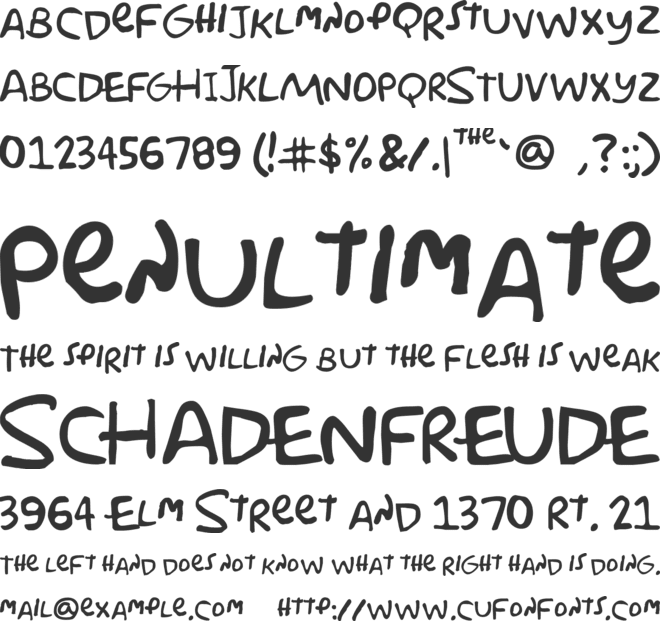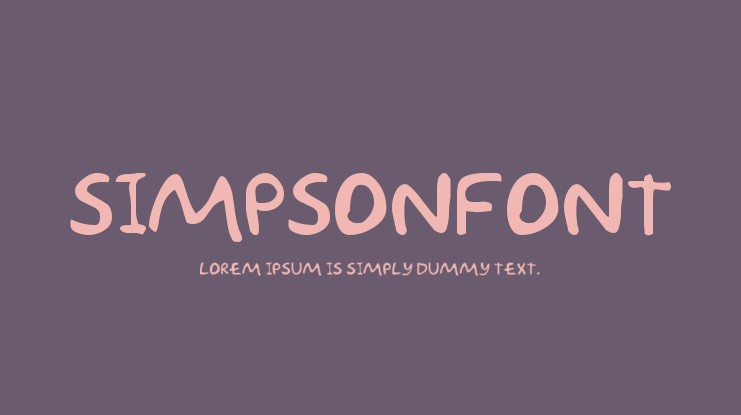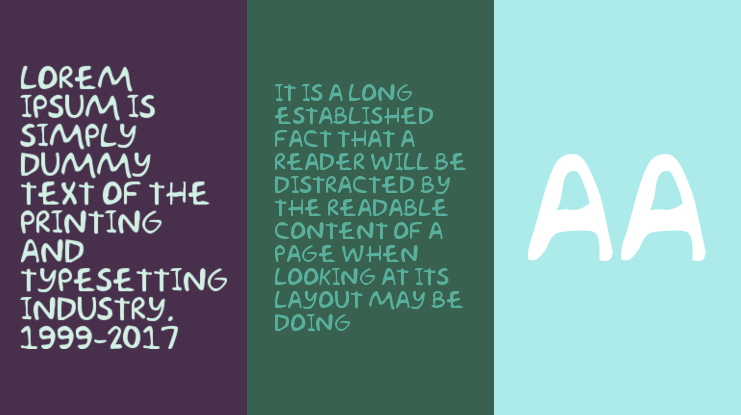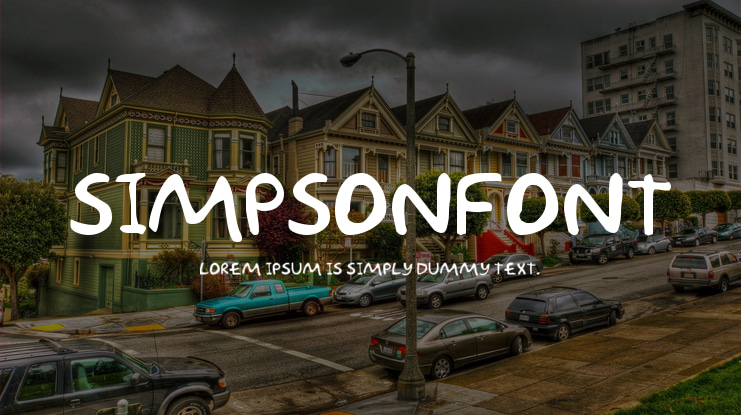
Simpsonfont Font Family
Originally compiled by Jon Bernhardt. Retouched by me.
Adapted by Jon Bernhardt. Certain letters retouched by Dennis Ludlow.
Adapted by Jon Bernhardt in 1996 from the 1991 font by Cowan Design Associates. Based on the famous handwriting of Matt Groening. I added many punctuation characters.